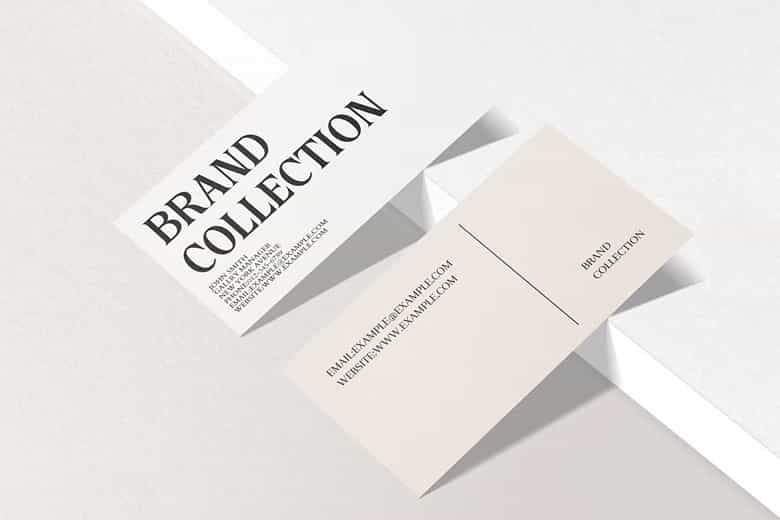
Featherly is an elegant contemporary serif typeface that unites pomposity and elegance in each stroke. Featherly is based on the idea of giving you timeless beauty and airy lightness taking its ideas in the lightness of feathers and the high fashion.